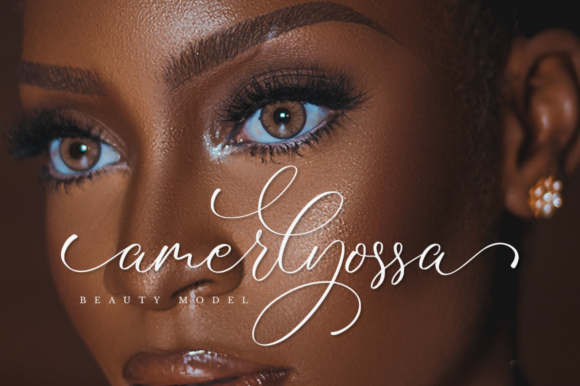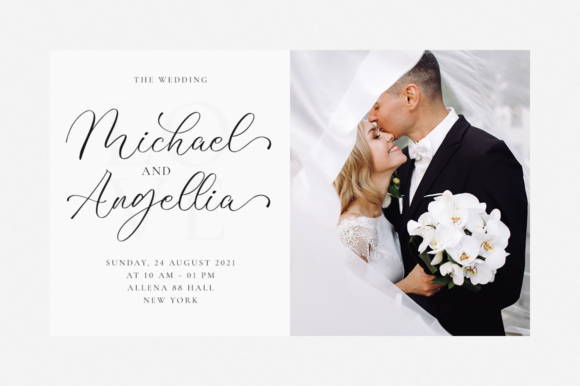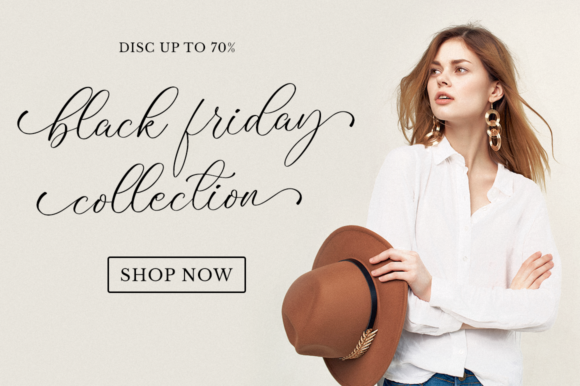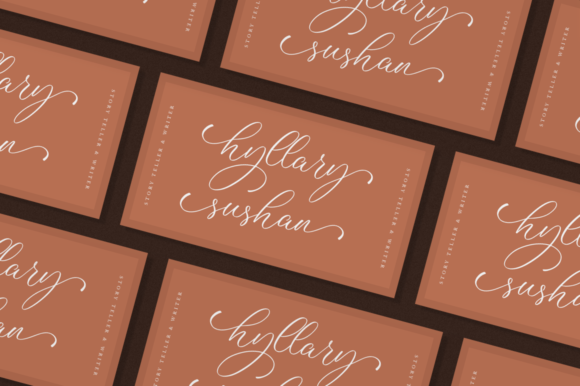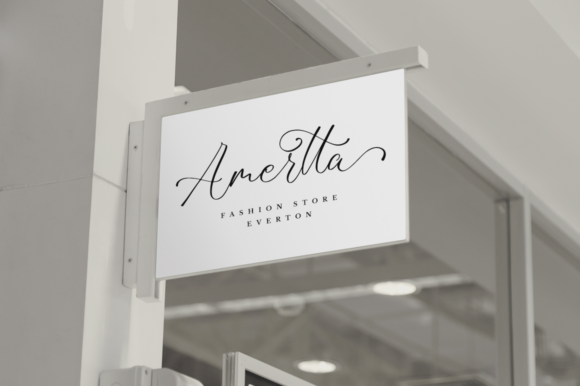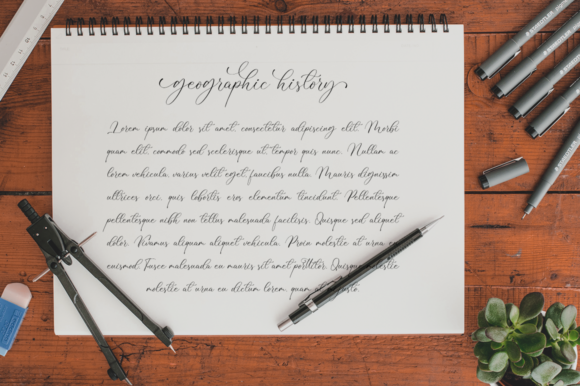
Introduction to Movelyone Font
There’s something magical about holding a handwritten note from a loved one. The imperfections, the flourishes, and the personal touch that comes with a handwritten message can evoke a range of emotions and make us feel truly seen. As designers, we’re always on the lookout for ways to infuse our creative projects with this same sense of personality and charm.
That’s where the Movelyone Font comes in – a stunning handwritten font that feels equally charming and elegant. Whether you’re working on a wedding invitation, a thank you card, or a logo, this font is sure to add a touch of sophistication and whimsy to your design. And with its PUA encoding, you’ll have access to all the glyphs and swashes you need to bring your creative vision to life.
Key Features of Movelyone Font
- Unique, hand-drawn style that adds a personal touch to any design project
- Perfect for use in logos, branding, and other design elements where a creative and eye-catching font is required
Honest Review: Movelyone Font
As a designer, I’m always on the lookout for high-quality design resources to elevate my creative projects. Recently, I stumbled upon the Movelyone Font, and I must say, it’s been a game-changer for me. ✨
- High-quality design: The Movelyone Font is expertly crafted, with clean lines, smooth curves, and a transparent background that makes it perfect for layered designs.
- Customization options: The font is highly customizable, allowing me to tailor it to my specific design needs.
- Limited styles: While the Movelyone Font is highly versatile, it’s limited to a single style, which may not be suitable for projects that require multiple font styles.
Overall, I’m thoroughly impressed with the Movelyone Font. Its high-quality design, customization options, and free download make it an excellent addition to any designer’s toolkit. While it has some limitations, I believe it’s a valuable resource that can help take my creative projects to the next level.
Movelyone Font: A High-Quality Design Resource
The Movelyone Font is a versatile and creative design resource perfect for various projects. It is available for free download and offers a transparent background, making it ideal for designs that require a clean and minimalist look.
Tips for Getting the Most Out of the Movelyone Font
To get the most out of the Movelyone Font, use it in combination with other high-quality design resources. Experiment with different font sizes, colors, and layouts to create unique and eye-catching designs.
The Movelyone Font is suitable for a wide range of creative projects, including:
- Presentation designs
- Logos and branding
- Document templates